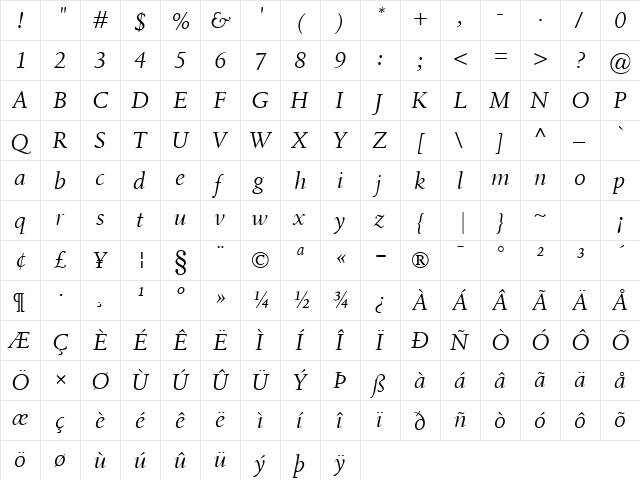
Birka Italic
Design Context for Birka Typeface
Birka offers clean, dependable letterforms without strong stylistic allegiance, making it a practical choice for designers who need flexibility. The dynamic lean of this cut emphasises speed and emphasis in any layout.
Pro Tip: Use Birka for emphasis, pull quotes, and subheadings where its slanted energy can add rhythm to the layout.